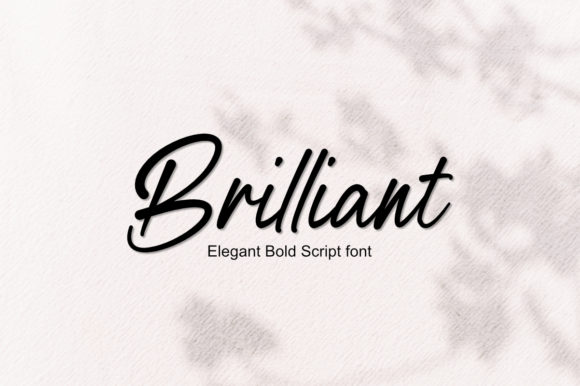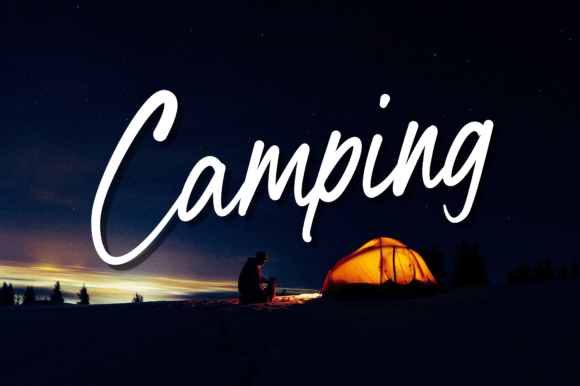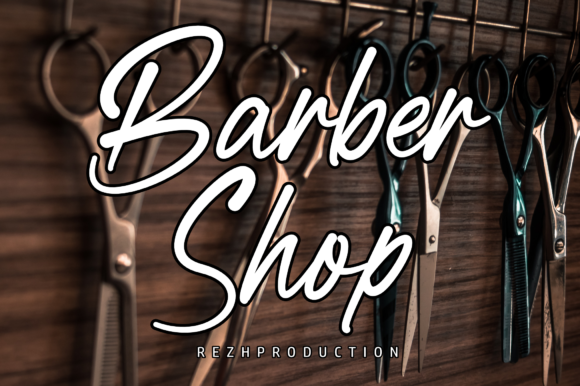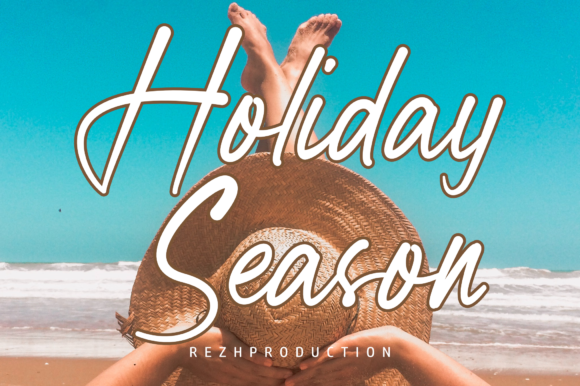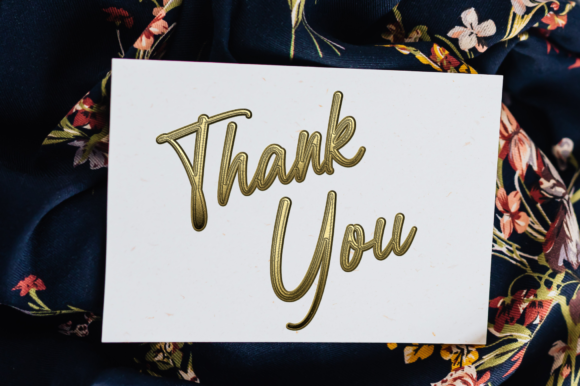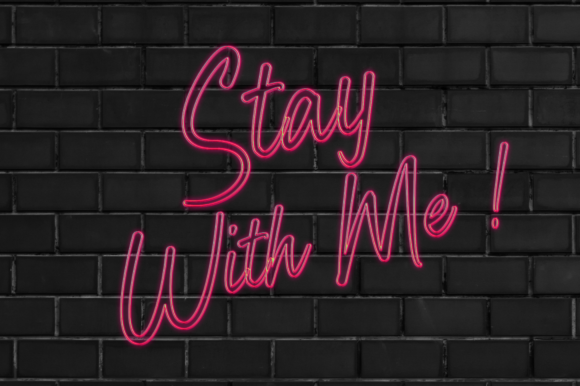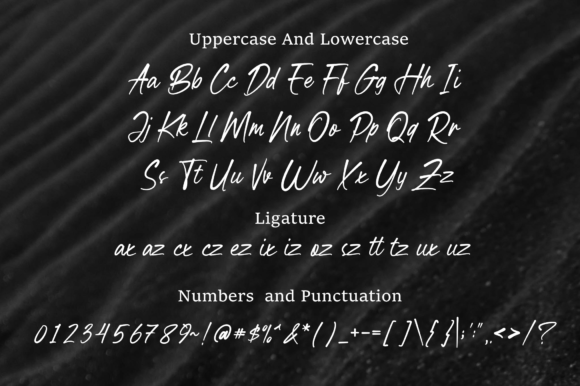
Brilliant Font
About Brilliant Font
“Brilliant” is an equally beautiful and relaxed handwritten font that exudes confidence, authenticity, and charm. With its flowing strokes and natural feel, this font is perfect for delivering any message with style and grace.
One of the standout features of “Brilliant” is its versatility. Whether you’re working on greeting cards, branding materials, labels, or any other crafting project, this font will elevate your designs and make them stand out. Its relaxed and effortless look adds a touch of warmth and approachability to your creations, creating a genuine connection with your audience.
When used in greeting cards, “Brilliant” adds a personal and heartfelt touch. The handwritten style conveys a sense of sincerity and authenticity, making your message feel more intimate and meaningful. Whether you’re expressing gratitude, sending well wishes, or simply spreading joy, this font enhances the emotional impact of your words.
In branding and label design, “Brilliant” brings a unique and memorable look. Its casual yet refined appearance sets your brand apart and makes it more relatable to your target audience. The hand-drawn quality adds a sense of craftsmanship and attention to detail, leaving a lasting impression on customers and clients.
Moreover, “Brilliant” is a versatile font that can be used in various other crafting ideas. Whether you’re creating handmade products, scrapbooking, or designing DIY projects, this font adds a touch of creativity and personality. Its relaxed and effortless style allows you to express your unique artistic vision and make each project truly stand out.
In conclusion, “Brilliant” is a beautiful and relaxed handwritten font that exudes confidence, authenticity, and charm. Its versatility and natural feel make it a great choice for delivering any message with style and grace. Whether you’re working on greeting cards, branding materials, labels, or other crafting projects, this font will elevate your designs and add a touch of warmth and approachability.